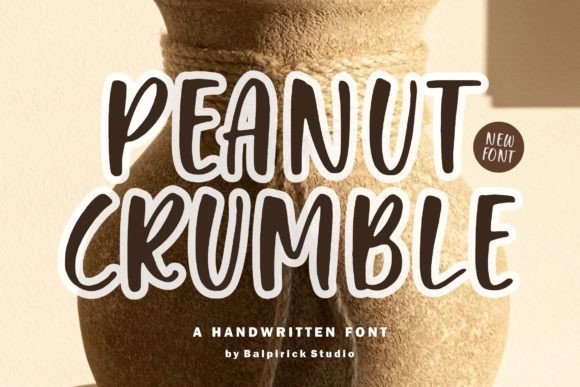
Introducing Peanut Crumble Font, the ultimate choice for those seeking the best fonts for handwriting. Created by the talented Balpirick, this font belongs to the script font family and is ready to revolutionize your creative projects.
Peanut Crumble is not just any ordinary font – it's an extraordinary blend of attractiveness and quirkiness. With its playful and rounded letters, every stroke brings a sense of joy and whimsy to your designs. Say goodbye to plain and predictable handwriting fonts, and embrace the uniqueness and individuality this font offers.
What sets Peanut Crumble apart is its unconventional character designs. Each letter has been meticulously crafted to add a touch of fun and personality to your branding or stationery. Whether you're creating a logo, business cards, invitations, or even social media posts, this font will make your content stand out from the crowd.
Looking to make a lasting impression? Peanut Crumble has got you covered. Its charming and distinctive style captures attention effortlessly. Watch as your audience is captivated by your creative endeavors, as this font leaves an indelible mark on their minds.
But why stop there? Let your imagination run wild with Peanut Crumble Font. Experiment with different colors, sizes, and styles to create truly unique and eye-catching designs. From cute and whimsical to bold and daring, this font adapts perfectly to any creative vision you have in mind.
With Peanut Crumble Font, you're not just downloading a font – you're unlocking a world of endless possibilities. Let your creativity soar high and your ideas come to life with the perfect blend of playfulness and sophistication.